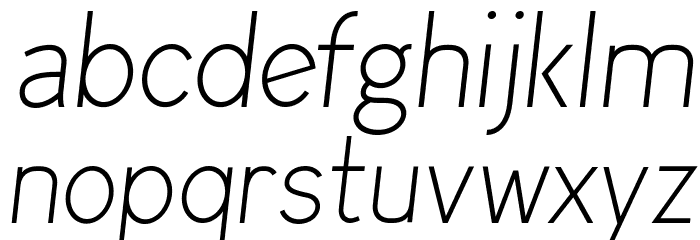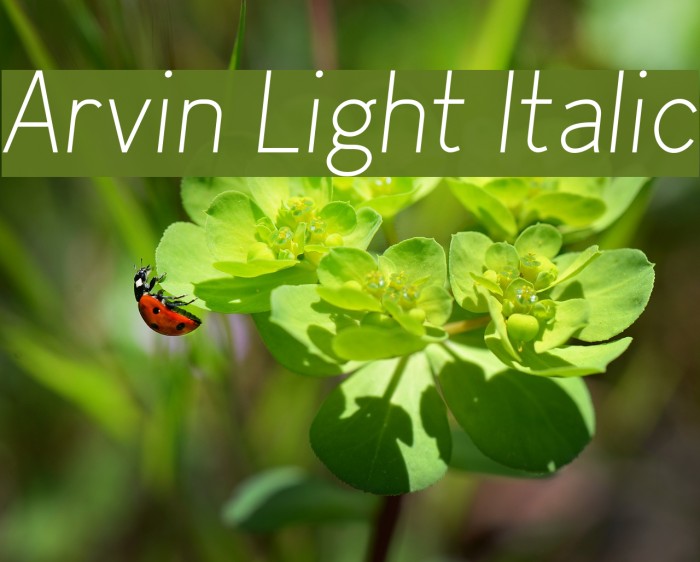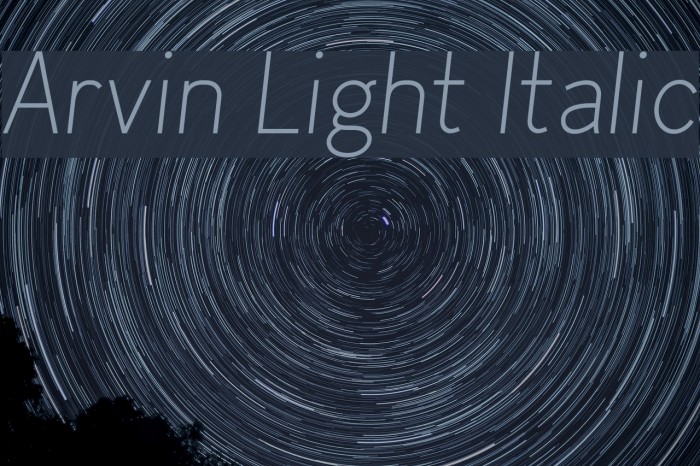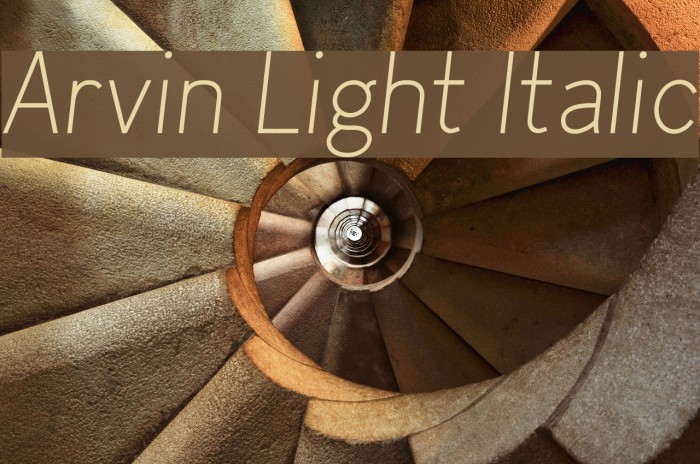
Arvin Light Italic Font
This font features a sleek and modern design with a light weight and italic style. The characters are elegantly elongated, giving a sense of sophistication and fluidity. The sans-serif nature of the font ensures a clean and uncluttered appearance, making it highly readable. The uniform stroke width adds to its contemporary feel, while the slight slant of the italic style introduces a dynamic and forward-moving energy. The character set includes both uppercase and lowercase letters, numerals, and a variety of special characters, providing versatility for various design needs.
A sleek, modern, light italic sans-serif font with elegant elongation.
- Proposed Projects: Ideal for modern branding, editorial design, fashion magazines, and digital interfaces.